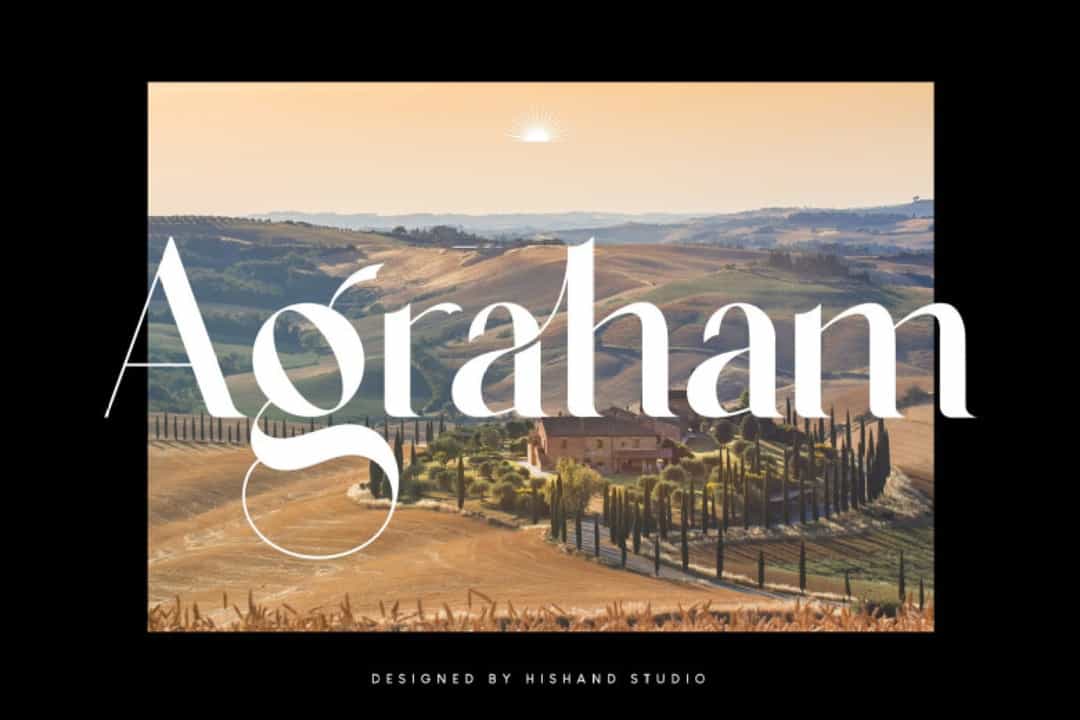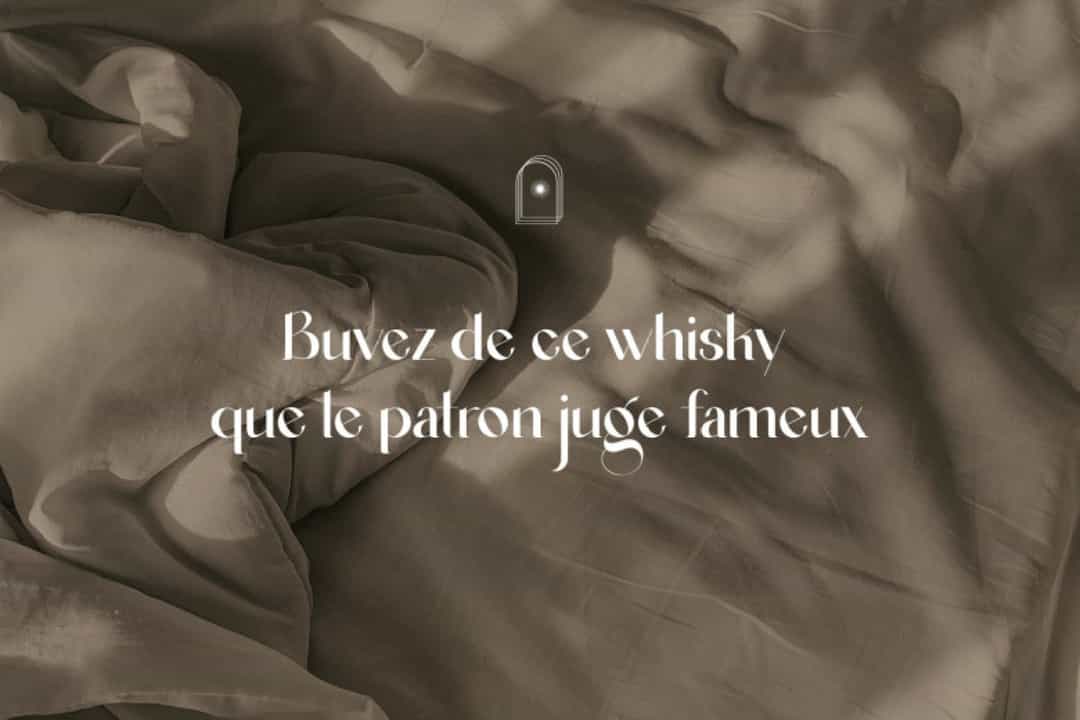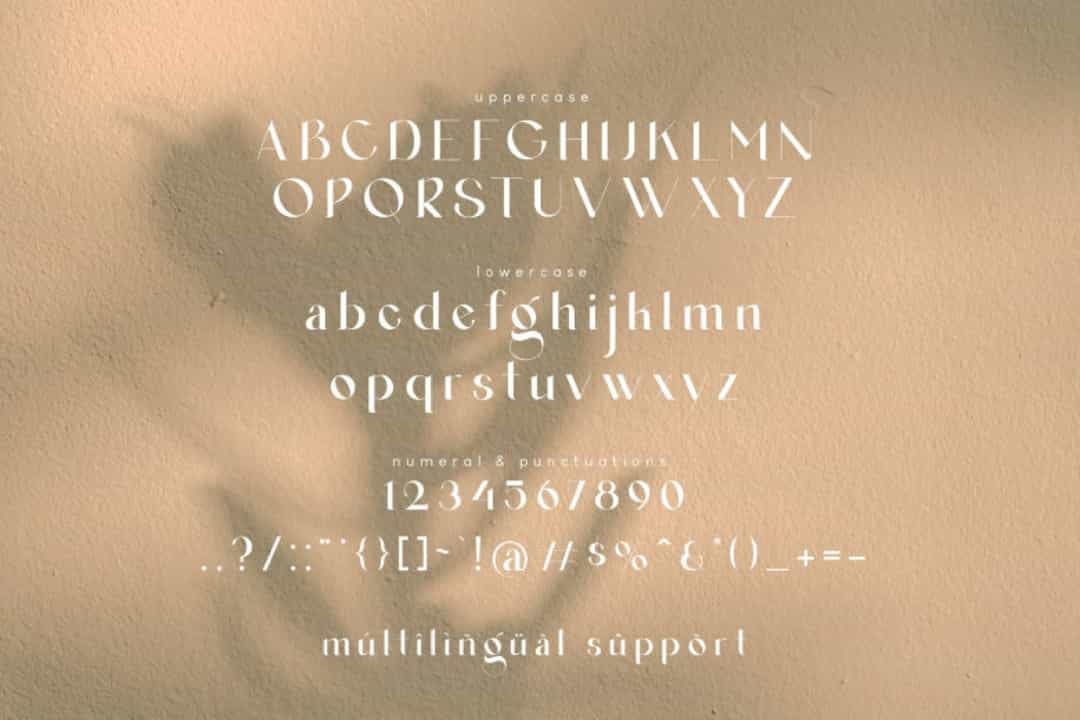
Agraham is an elegant serif font with a nostalgic appeal, designed beautifully and precise enough for use at any size. PUA encoded, Agraham provides easy access to its various glyphs, swashes and characters!